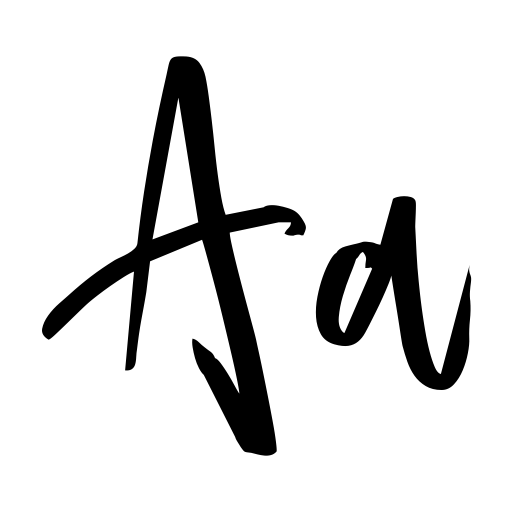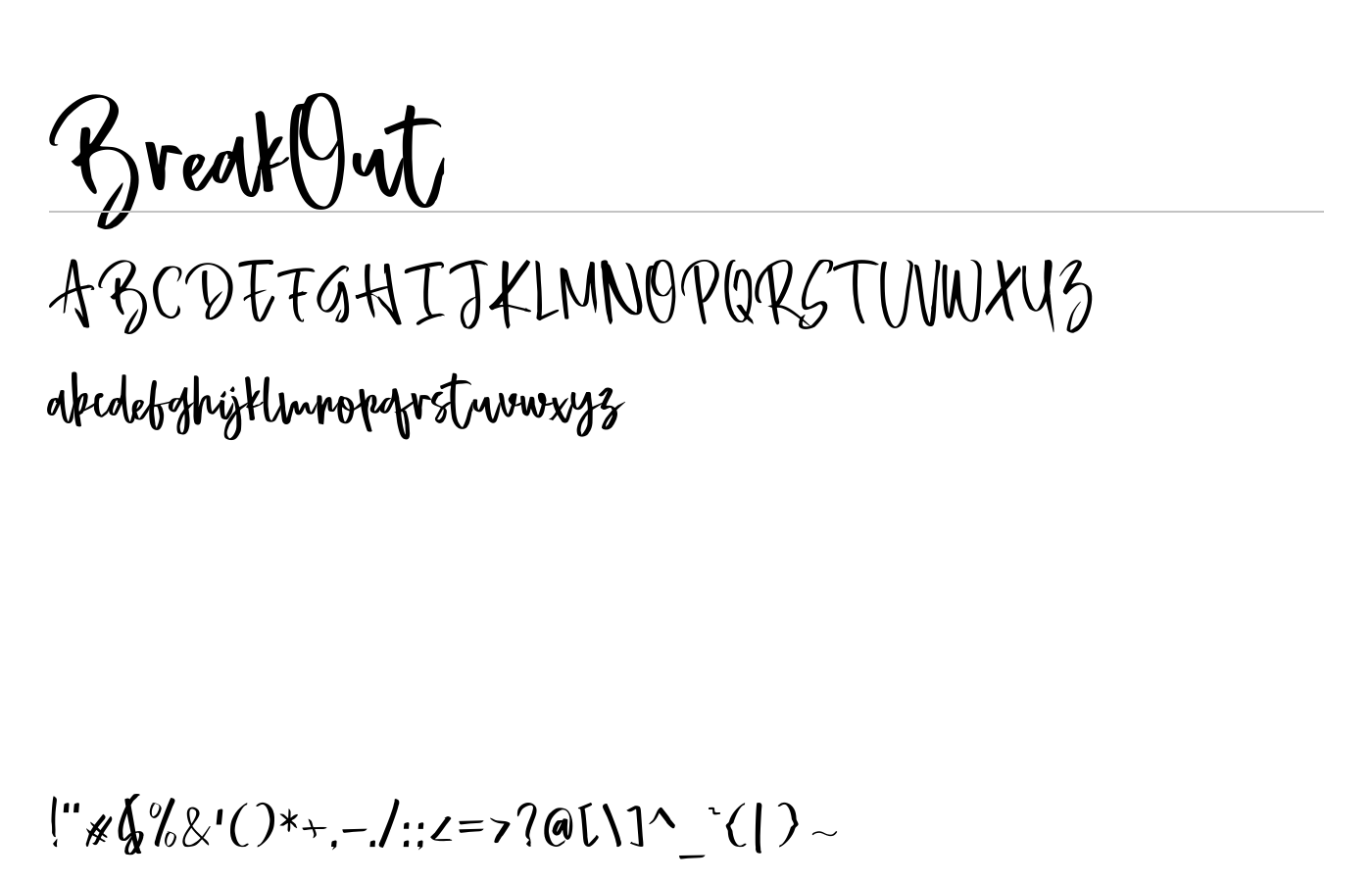
BreakOut is a lively, handwritten script font with a casual and artistic flair. Its uneven strokes and playful letterforms create a dynamic and personal feel, making it perfect for creative projects, branding, and designs that want to convey energy and approachability. This font works well in logos, invitations, and headlines where a fun and expressive style is needed.
BreakOut Font
About BreakOut Font
| Font family | BreakOut Font |